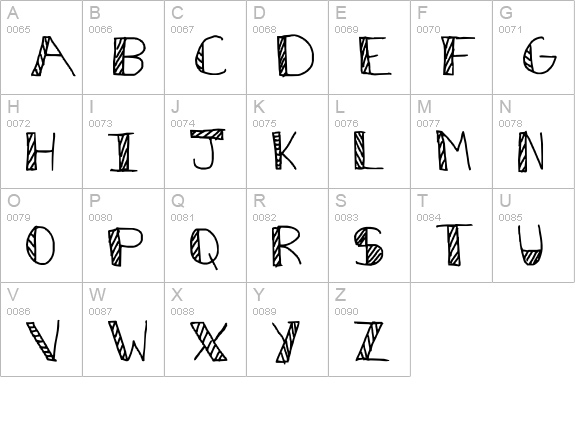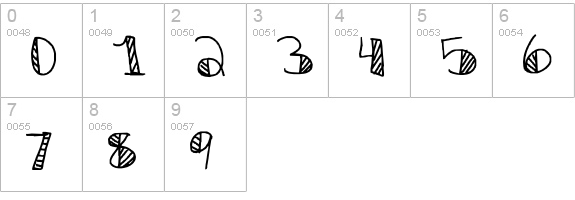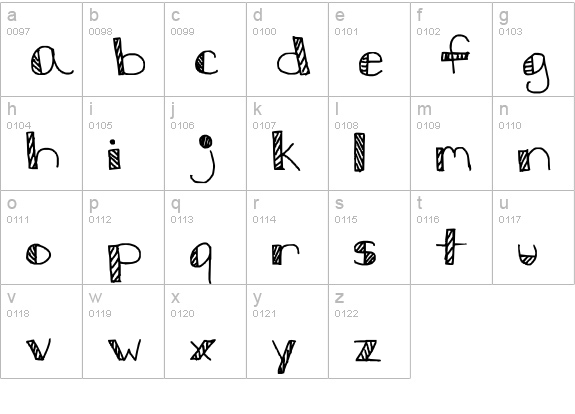
Stripes and bubbles Font Details
Introducing the captivating Stripes and Bubbles font, a whimsical and playful typeface that is sure to add a touch of charm to your designs. This unique font features a delightful combination of stripes and bubbles, creating a fun and eye-catching look perfect for a variety of projects. Not only does the Stripes and Bubbles font offer a fresh and modern take on typography, but it is also available for free download at FontsMarket.com. Now you can easily access this charming font to enhance your designs without any cost involved. Let your creativity soar with the Stripes and Bubbles font, and make your projects stand out with its cheerful and dynamic style.